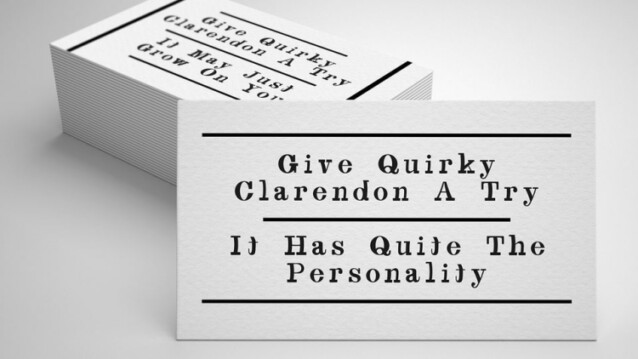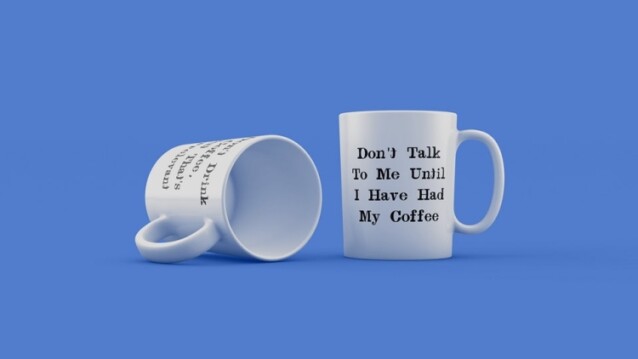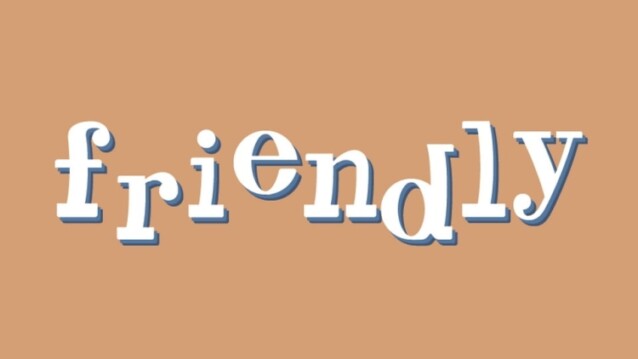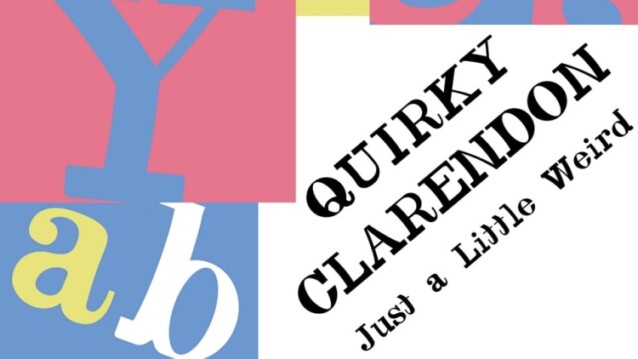
Quirky Clarendon Font
Quirky Clarendon Font is an experimental subfamily that received a high contrast from Quietism Display and a high x-height from Quietism Text. Quirky Clarendon project started out as creating a custom typeface based off of an existing one from a small list, which was difficult to choose from. It’s still a Display typeface, albeit more graceful, wide and open.